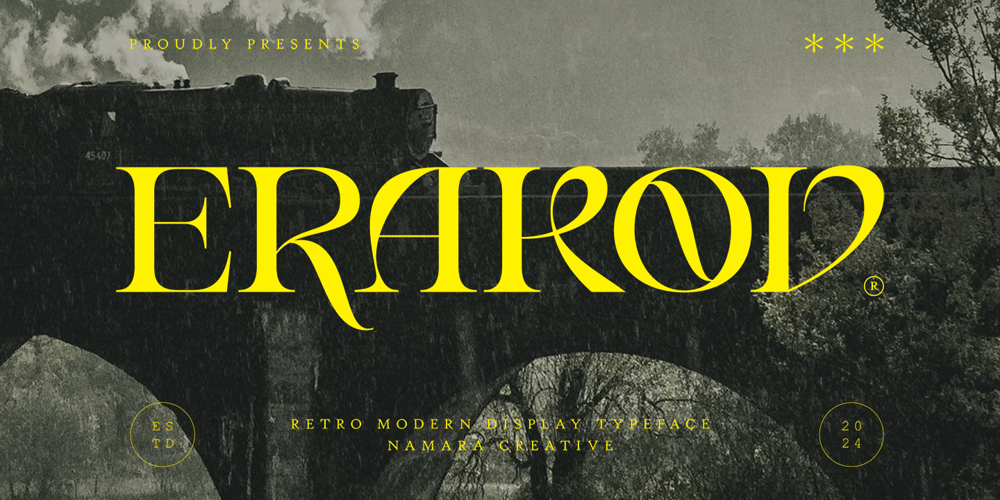
Erakov
Erakov font
Erakov Font Family was designed by Toni Setiawan and published by Namara Creative Studio. Erakov contains 1 styles and family package options. Retro modern serif display font, Embrace a typeface that encapsulates the essence of retro charm and modern minimalism. Whether you’re looking to evoke nostalgia or convey contemporary elegance, this font is your go-to solution for achieving that perfect balance.Make your designs unforgettable with the retro modern serif display font, where classic meets modern in the most stylish way.Features : All Caps Display Characters Multilingual Support PUA Encoded | No special software needed to access extra characters. Notes : To be able to access ligatures and the alternate letters, please make sure the software you are using can support opentype features.